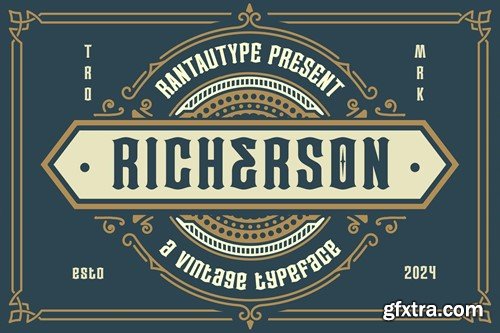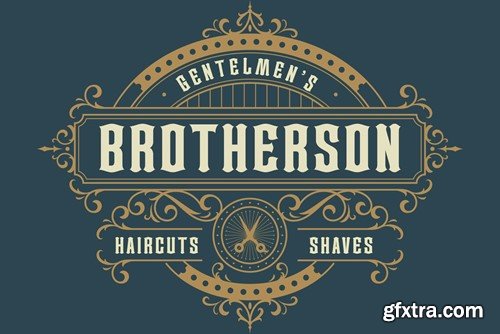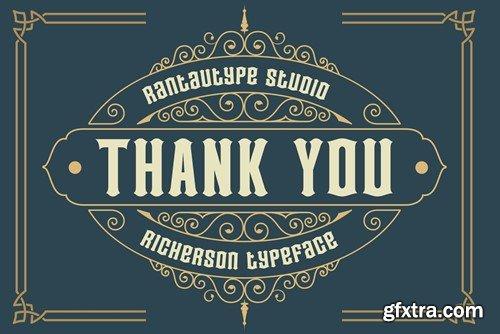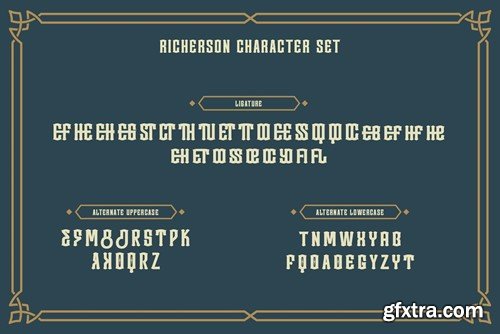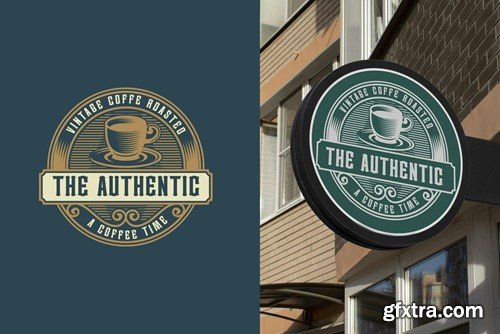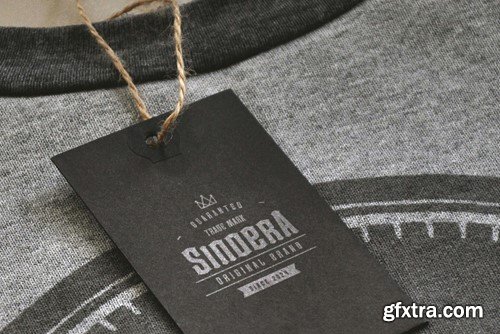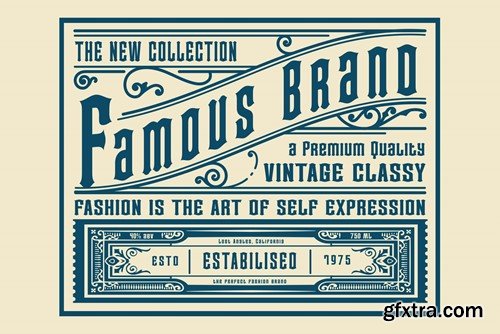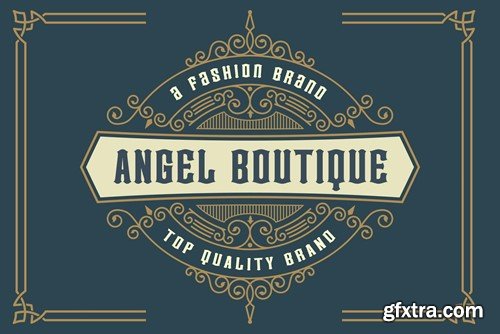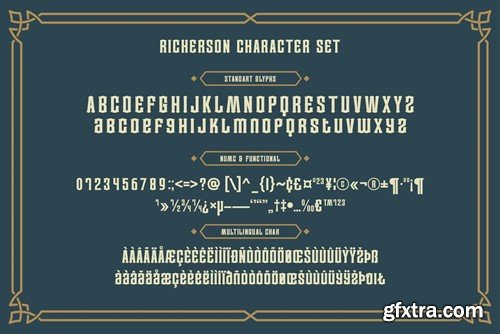
Richardson 一个 vintage 字型 D3GJWRK
Richerson is vintage typeface with sophisticated bold and embrace elegancy visual design. Richerson come to make your project design shine and stand out. Richerson is a perfectly choice for any creative endeavor, chic, lifestyle design such as logos, advertisements, stationery, branding project, display and magazine, invitation, corporate brand, product design, label, business project and many other project with elegant touch. What you have: Fonts include Multilingual Character for: Afrikaans, Albanian, Asu, Basque, Bemba, Bena, Breton, Chiga, Cornish, Dutch, English, Estonian, Filipino, Finnish, Friulian, Galician, Gusii, Indonesian, Irish, Italian, Kabuverdianu, Kalenjin, Kinyarwanda, Luo, Luxembourgish, Luyia, Machame, Makhuwa-Meetto, Makonde, Malagasy, Manx, Morisyen, North, Ndebele, Nyankole, Oromo, Portuguese, Quechua, Romansh, Rombo, Rundi, Rwa, Samburu, Sango, Sangu, Scottish, Gaelic, Sena, Shambala, Shona, Soga, Somali, Spanish, Swahili, Swedish, Swiss, German. Thank you for your purchase! Hope you enjoy with our font!